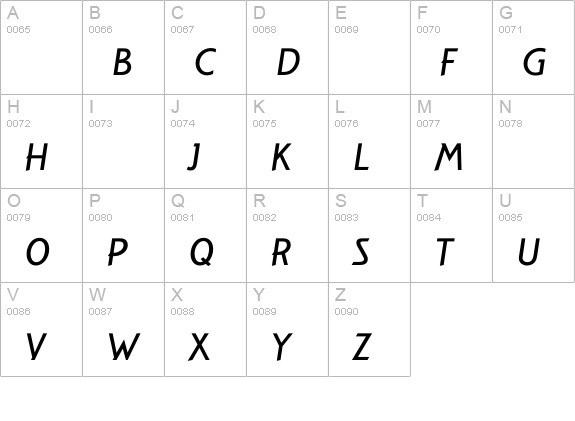
GilmoreFahrenheit Font Details
GilmoreFahrenheit is a stylish and modern font that exudes elegance and sophistication. Its sleek lines and sharp edges make it perfect for a wide range of design applications, from logos to branding to editorial layouts. With a unique blend of classic and contemporary elements, GilmoreFahrenheit stands out as a versatile choice for designers looking to make a statement. The best part? GilmoreFahrenheit is completely free to download at FontsMarket.com. This means you can add this stunning font to your collection without breaking the bank. Whether you're working on a personal project or a professional design, GilmoreFahrenheit is sure to elevate your work with its distinctive flair and timeless appeal. Download it today and see for yourself the impact this font can have on your designs.